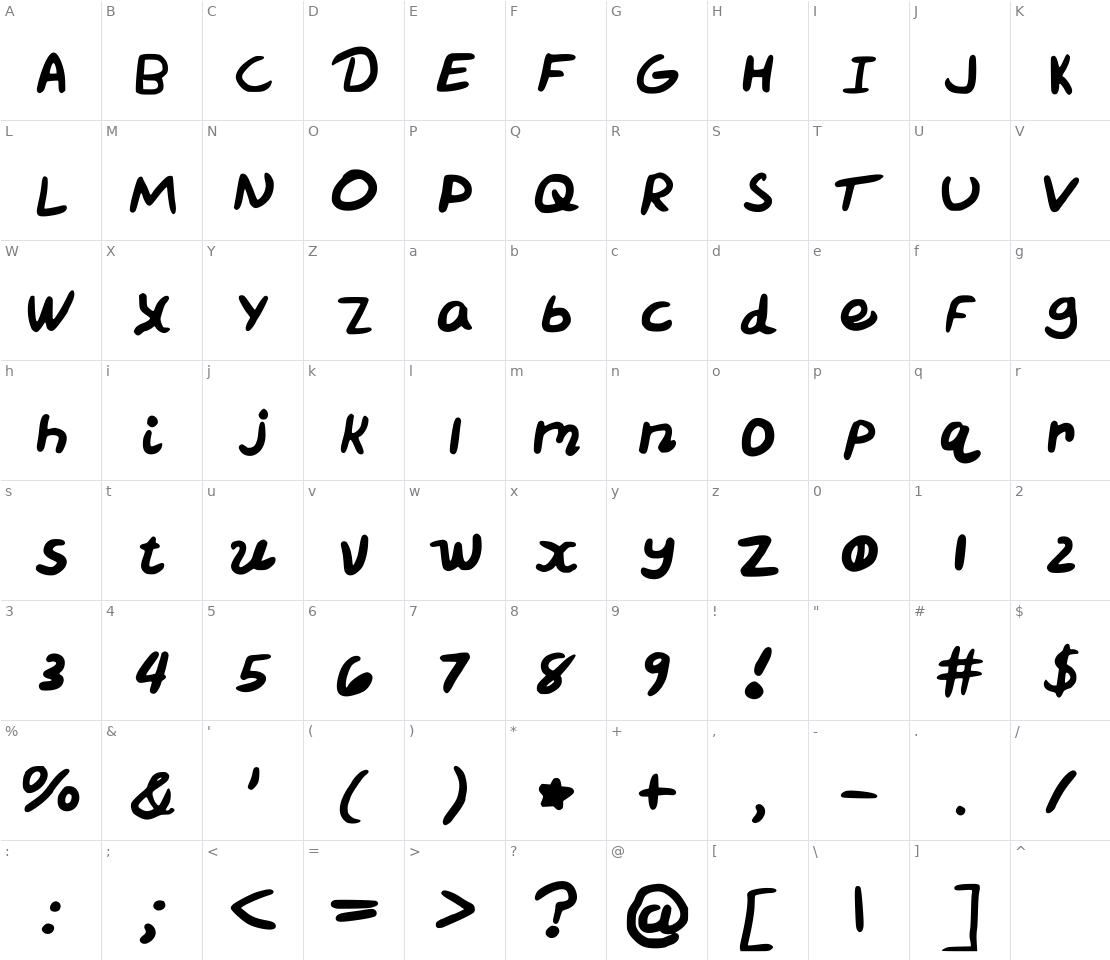
CreatiCredad
by Jack Jerod
CreatiCredad is a thick, rounded handwritten face from Jack Jerod that captures the confident, slightly uneven energy of a broad-tip marker on paper. The bold strokes and casual letterforms keep things playful without feeling sloppy, landing in that sweet spot between hand-lettered charm and solid readability. Best at headline sizes for posters, packaging, or branding where you want something that feels personal and punchy.